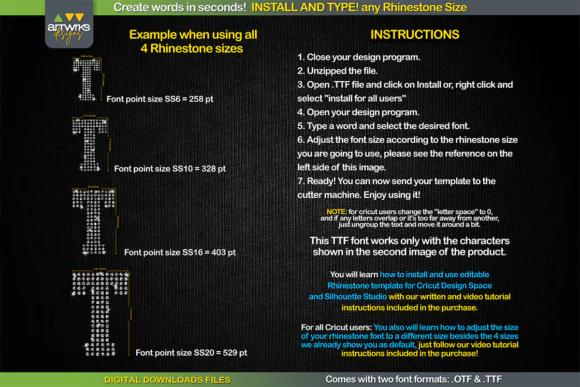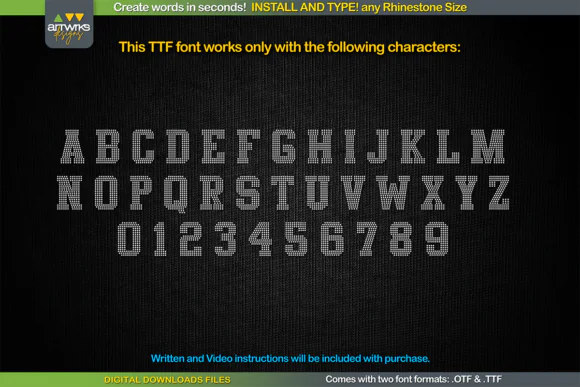
RS02 Atletico TTF Rhinestone Template Font | Typeable Crystal Hotfix Sports Font for Cricut, Silhouette, T-Shirts, HTV, Rhinestone Transfers & Custom Apparel
Create custom rhinestone text designs quickly and easily with RS02 Atletico TTF Rhinestone Template Font, a typeable rhinestone font designed for making professional crystal-style words, sports apparel, hotfix transfers, heat transfer vinyl designs, and personalized t-shirt graphics.
This digital font template allows you to simply install the font, open your preferred design software, type any word, and create rhinestone-ready lettering in seconds. Each letter is designed to be filled with rhinestone placement points or arranged for heat transfer vinyl use, making it a useful tool for crafters, apparel sellers, Cricut users, Silhouette creators, small business owners, and custom merch designers.
The RS02 Atletico style is especially suitable for sporty, bold, athletic, and team-inspired designs. Use it to create custom names, team shirts, cheer designs, sports jerseys, dance team apparel, birthday shirts, school spirit wear, rhinestone transfers, boutique clothing, and personalized gifts.